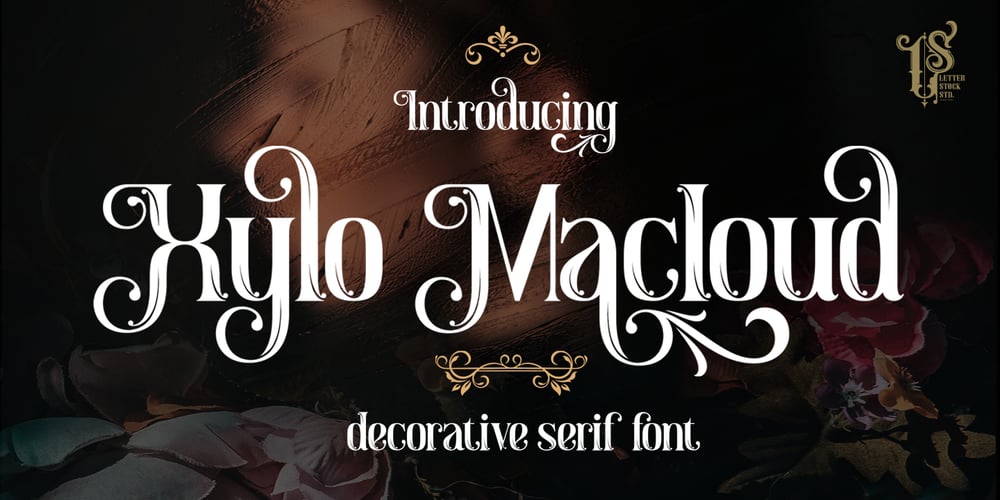
Xylo Macloud Font Family was designed by Studio LetterStock and published by LetterStock. Xylo Macloud contains 1 styles and family package options. Xylo MacloudThis pair was inspired by wallpaper design that i saw at my friend’s garage, it was crafted by hand specially to add natural handmade feeling in its brand identity than i make it clean with pentool.Opentype featuresXylo Macloud font has 204 character set included.This font is very good for design logo, labels, packaging product, invitations, advertising and others. This font will make your design authentic, unique and good looking with modern calligraphy style.If you’re looking for authentic decorative serif font, this item is a great choice to make your design looks great, unique and authentic.This fonts works with following languages:Afrikaans, Albanian, Asu, Basque, Bemba, Bena, Chiga, Cornish, Danish, English, Estonian, Filipino, Finnish, French, Friulian, Galician, German, Gusii, Indonesian, Irish, Italian, Kabuverdianu, Kalenjin, Kinyarwanda, Low German, Luo, Luxembourgish, Luyia, Machame, Makhuwa-Meetto, Makonde, Malagasy, Malay, Manx, Morisyen, North Ndebele, Norwegian Bokmål, Norwegian Nynorsk, Nyankole, Oromo, Portuguese, Romansh, Rombo, Rundi, Rwa, Samburu, Sango, Sangu, Scottish Gaelic, Sena, Shambala, Shona, Soga, Somali, Spanish, Swahili, Swedish, Swiss German, Taita, Teso, Vunjo, ZuluThank you for using this font.LS